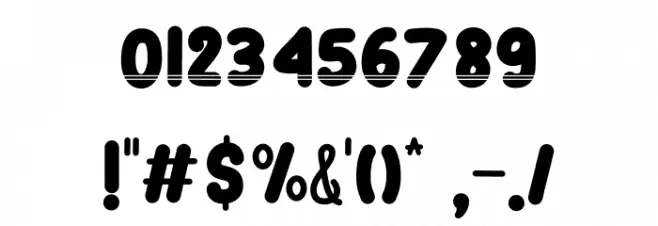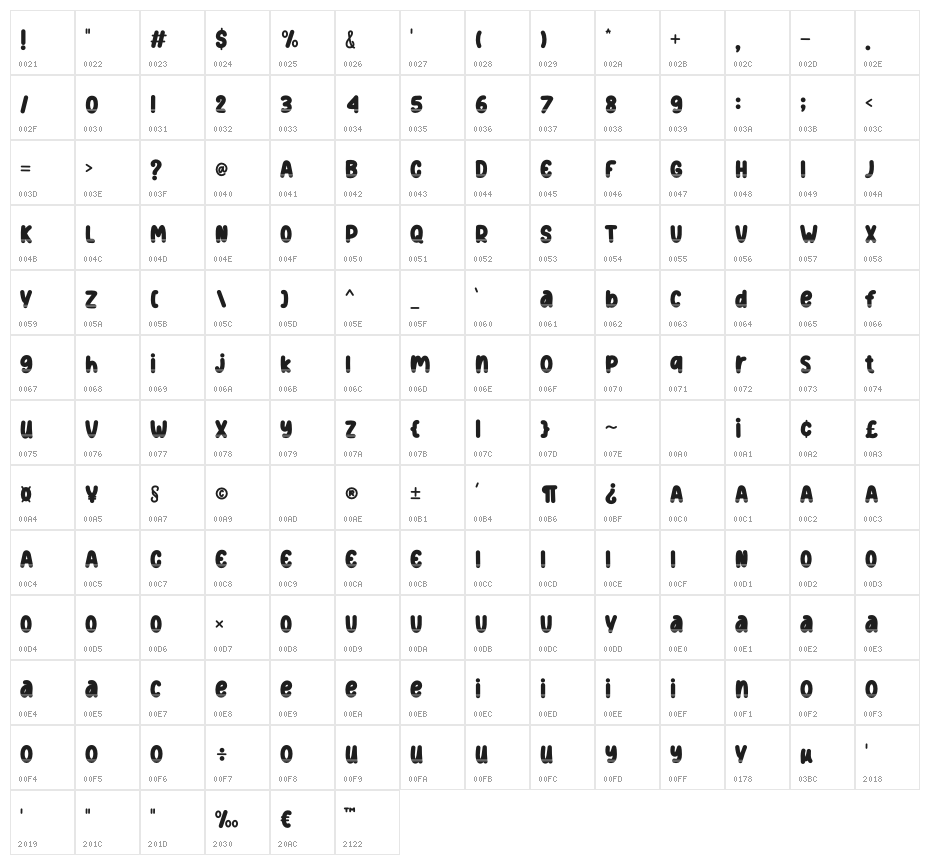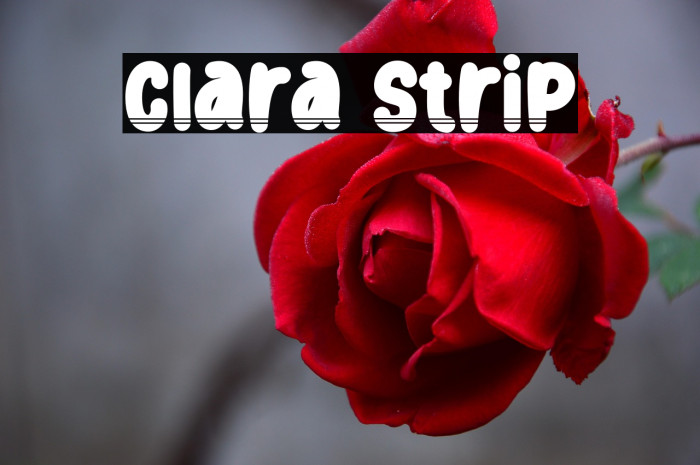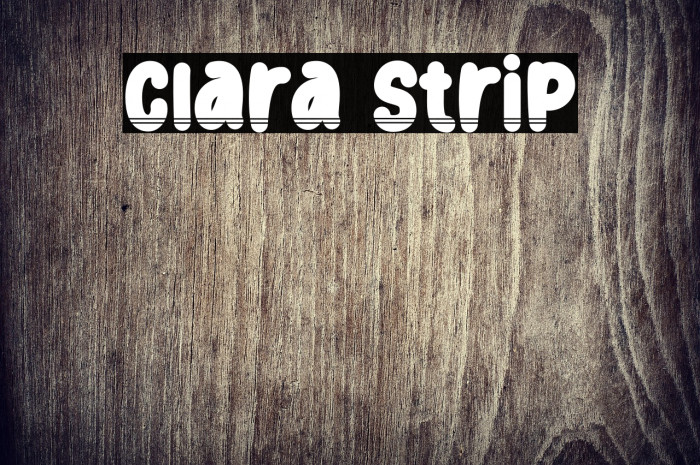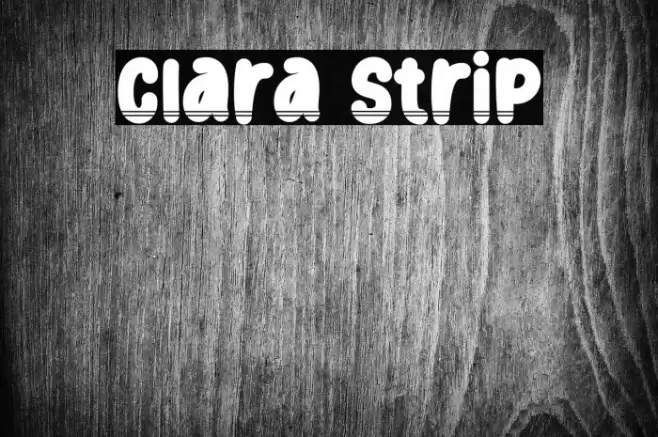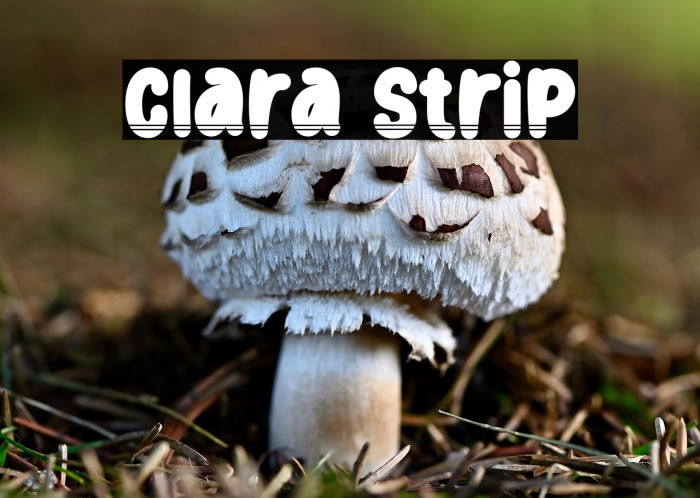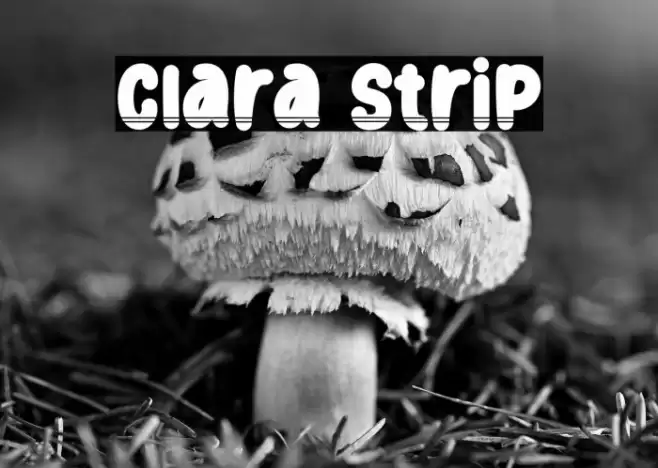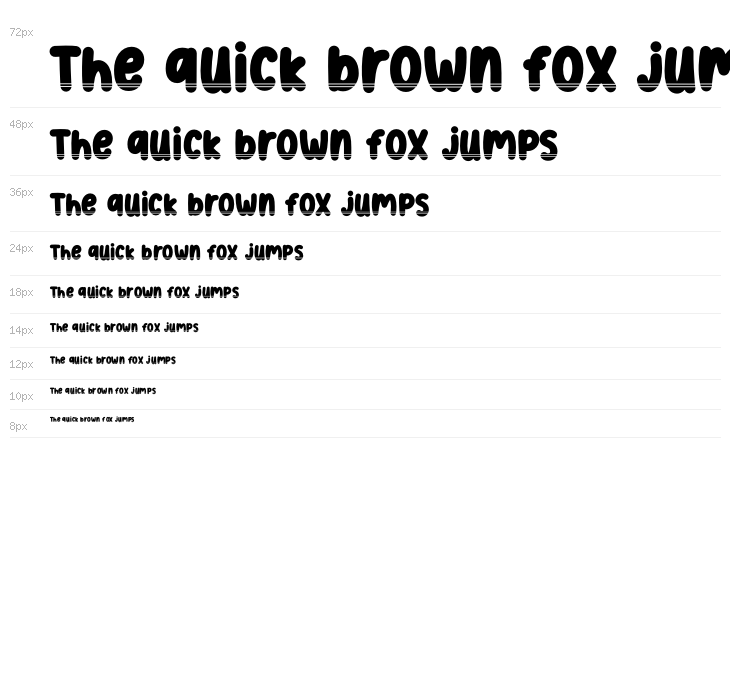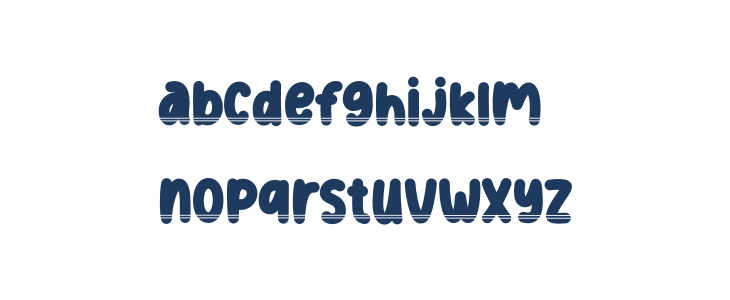
Clara Strip Font
Clara Strip Description
This font features a bold and playful design with a unique striped pattern running horizontally through each character. The rounded edges and thick strokes give it a friendly and approachable appearance, making it ideal for creative and informal applications. The uppercase and lowercase letters maintain a consistent style, while the numerals and special characters are designed to complement the overall aesthetic. The font's distinctive look is both eye-catching and memorable, suitable for projects that require a touch of whimsy and fun.
Overall StylePlayful, Modern
Proposed ProjectsIdeal for children's books, playful branding, event posters, and creative packaging.